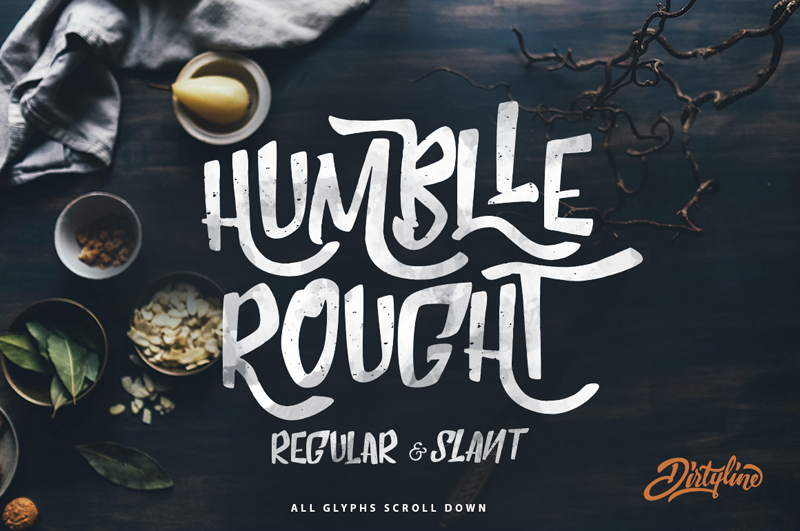
Hello There, Thanks for download my free font. You can download full version here http://crtv.mk/z5NU Humblle Rought - a modern vintage Brush typeface style with some combination of style Street And LifeStyle. wild hand and imperfect flow give the natural looks. So beautiful on invitation like greeting cards, branding materials, business cards, quotes, posters, and more! Files included: Humblle Rought ttf & otf Humblle Rought Cap Slant ttf & otf Humblle Rought Swash ttf & otf Humblle Rought Dingbat ttf & otf Features Basic Latin A-Z and a-z Numbers Symbols Visit For any premium Font dirtylinestudio.com |